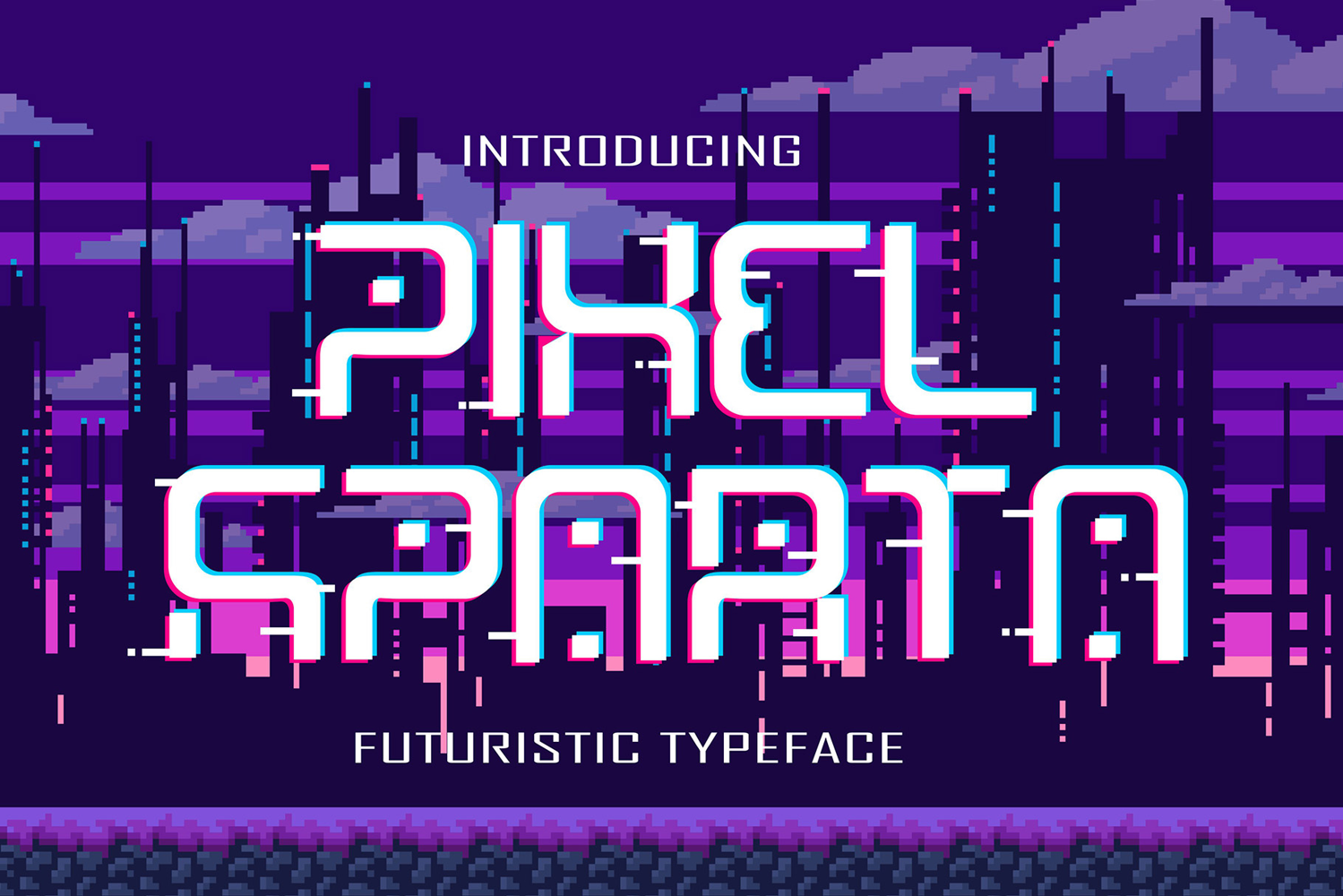
Pixel Sparta
Pixel Sparta is a futuristic display font that combines digital aesthetics with bold geometric shapes. Its modern letterforms are inspired by pixel-art visuals and cyberpunk themes, making it ideal for gaming designs, sci-fi posters, esports branding, and tech-inspired logos. With its sharp edges and neon-style details, this font delivers a futuristic vibe that is perfect for projects seeking a modern digital identity.
Whether you’re creating merchandise, website graphics, or social media visuals, Pixel Sparta adds a strong and energetic personality. Its bold display style ensures maximum visibility and makes your typography stand out in both print and digital applications.